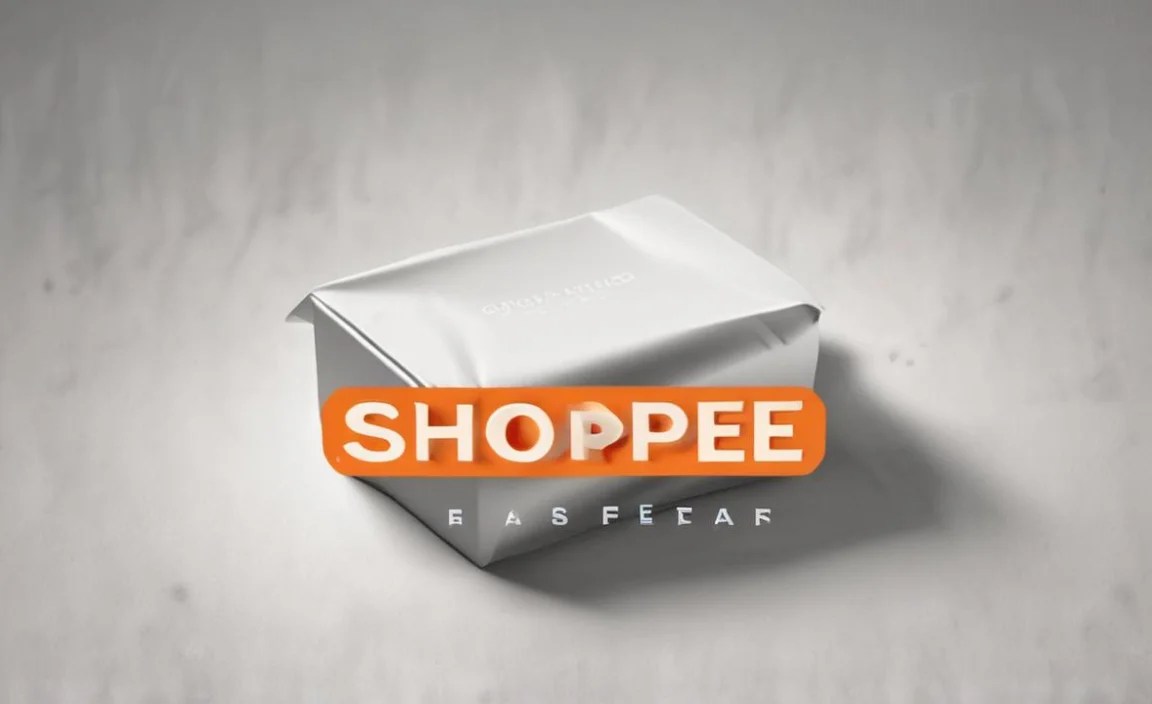
The Shopee Font, inspired by the branding of Shopee, is a modern sans-serif logo typeface designed to represent the innovation and energy of the digital e-commerce platform. Shopee, established by Forrest Lee in Singapore in 2015, has expanded globally, with its branding reflecting the seamless experience of its marketplace. This font complements creative projects prioritizing clarity, simplicity, and professionalism, making it a favorite for personal and commercial designs.
Type of Shopee Font (Font Family)
The Shopee Font Family offers a single, sleek style:
- Shopee Logo Regular
Its clean, geometric curves and bold aesthetics make it instantly recognizable and adaptable to various design needs.
Shopee Font Features And Characteristics
The Shopee Font is a modern, clean, and highly recognizable typeface used by the popular e-commerce platform Shopee. This font is integral to Shopee’s brand identity and plays a significant role in how users experience the platform visually. Below are the key features and characteristics of the Shopee Font:
1. Modern And Clean Design
The Shopee font boasts a sleek and minimalistic design. It is easy to read and works well across a variety of digital platforms, making it perfect for e-commerce. Its straightforward lines and simple structure ensure the font doesn’t overpower other visual elements on the platform.
2. Sans Serif Typeface
Shopee uses a sans-serif font, which gives it a contemporary, professional look. Sans-serif fonts are often chosen for their clean appearance, which makes them ideal for online interfaces. This design choice helps to improve readability, especially on smaller screens.
3. Bold And Friendly Characters
The Shopee font features slightly bold characters, making the text stand out without appearing too aggressive. The rounded edges of the letters provide a friendly and approachable tone, reflecting Shopee’s commitment to offering a positive and user-friendly shopping experience.
4. Wide Character Set
Shopee’s font includes a comprehensive set of characters, ensuring it can support multiple languages and regions. This makes the font versatile for use across Shopee’s international operations, allowing it to maintain a consistent visual identity across diverse markets.
5. Customizable For Branding
Although Shopee’s primary font is distinctive, it also allows flexibility for customizing branding elements. The typeface can be adjusted for use in marketing materials, ads, and more, ensuring that it aligns with specific design needs while maintaining brand consistency.
6. Optimized For Digital Platforms
The Shopee font has been designed to work seamlessly on digital platforms, especially mobile devices. Its clarity and legibility at smaller sizes make it ideal for mobile shopping experiences, where clear typography is essential for user navigation.
7. Balanced And Proportional
The Shopee font’s letters are well-proportioned, giving a balanced and harmonious visual flow. The even spacing between characters enhances readability, whether used in product descriptions, headings, or promotional banners.
8. Flexible Application
Shopee’s font is highly versatile and is applied across various parts of its website and app, from product pages and category listings to customer support messages and call-to-action buttons. It works well in both large headings and small text, ensuring that the visual identity remains consistent.
9. Casual And Approachable
While maintaining professionalism, the Shopee font also conveys a sense of approachability and fun. This characteristic aligns with Shopee’s goal of making online shopping a fun and easy user experience.
10. Optimized For Branding And Marketing
Shopee’s font is ideal for creating marketing materials such as banners, posters, and social media ads. Its boldness and simplicity allow it to be used effectively in digital and print advertising, ensuring high visibility and impact.
Using Occasions Of The Shopee Font
The Shopee Font is versatile and suitable for a range of creative uses, including:
- Logos: Ideal for brands looking for a professional and modern touch.
- E-commerce Graphics: Perfect for online store banners, product labels, and ads.
- Social Media: Enhance Instagram posts, Facebook visuals, and Pinterest designs.
- Print Templates: Use for brochures, posters, or promotional materials.
- Web Design: Suitable for website headings, UI/UX design, and mobile app branding.
Shopee Font Found In Use
This font excels in both digital and printed materials, such as:
- E-commerce Branding: Used by millions of users for their store logos and banners.
- Product Labeling: Common in food packaging, smoothie shoppe branding, and retail items.
3.What Are The Best Uses For Shopee Font?
Shopee Font is perfect for:
- Logos and branding.
- Social media visuals.
- E-commerce websites and ads.
- Professional documents and presentations.
4.Does Shopee Font Support Multilingual Designs?
Yes, Shopee Font includes support for multiple languages like English, Chinese, and other global scripts, making it ideal for international projects.
5.What Are Similar Fonts To Shopee Font?
Alternatives include Roboto, Montserrat, and Poppins, which share its clean and modern aesthetic.